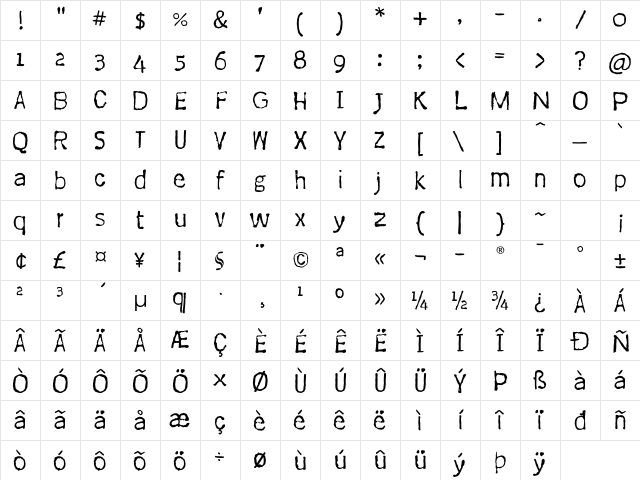
Coventry ITC Std Thin
Style: Thin
Designer: Brian Sooy
Design Context for Coventry ITC Std
Coventry ITC Std is a composed and adaptable typeface that performs quietly and consistently across a wide range of design contexts. Its slender proportions lend an understated elegance to any composition.